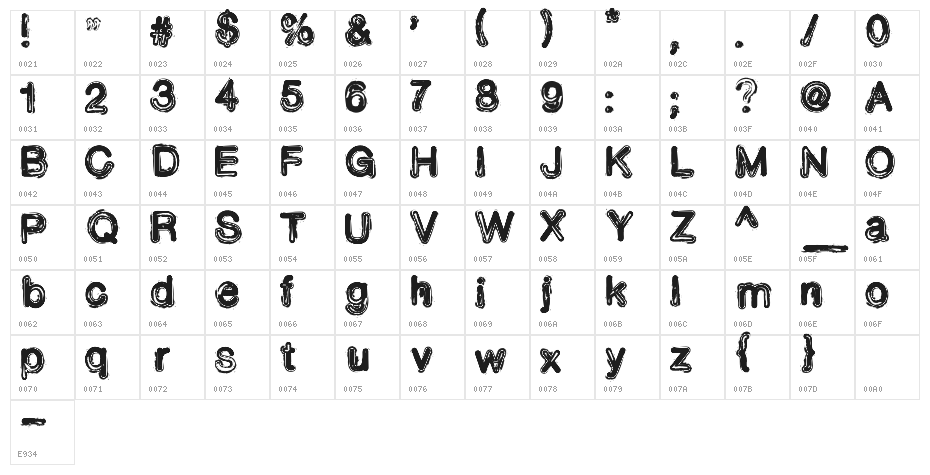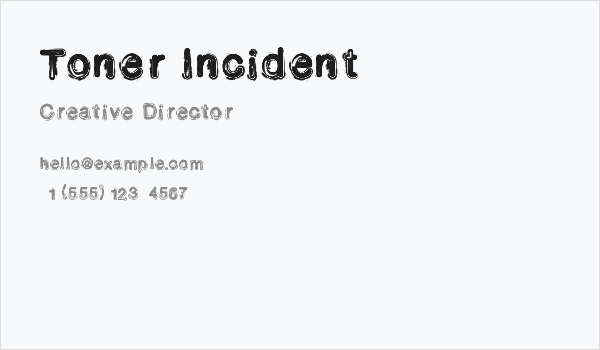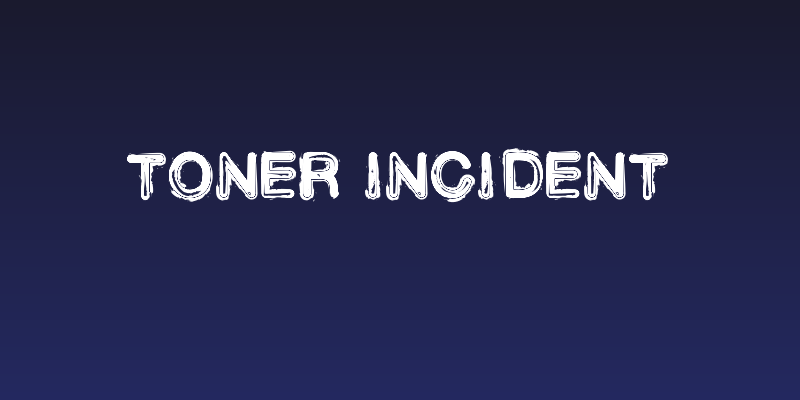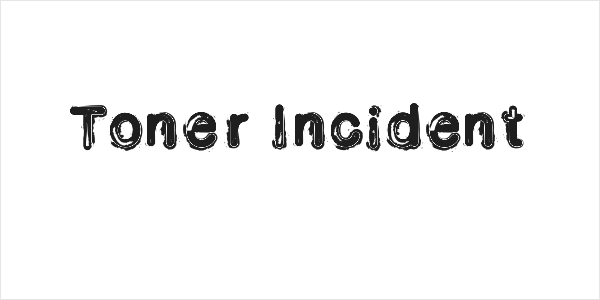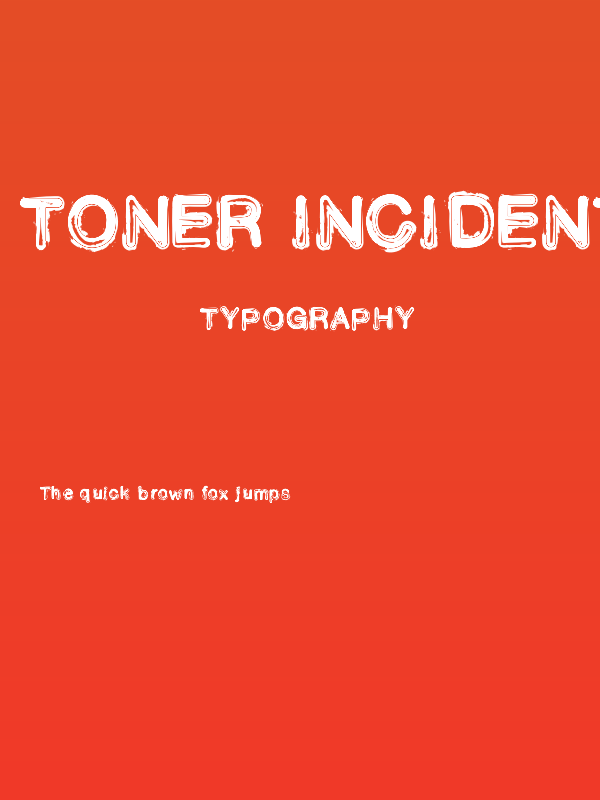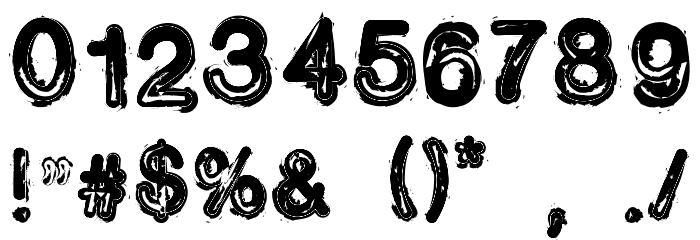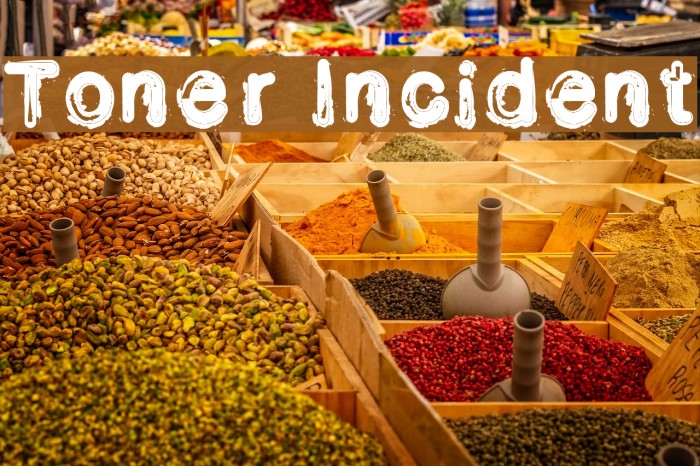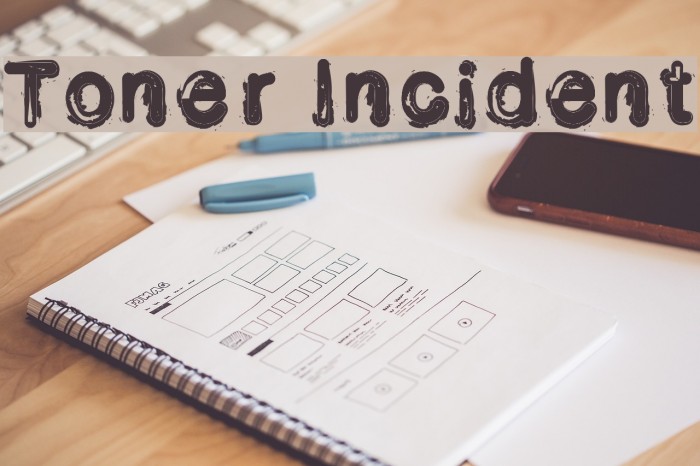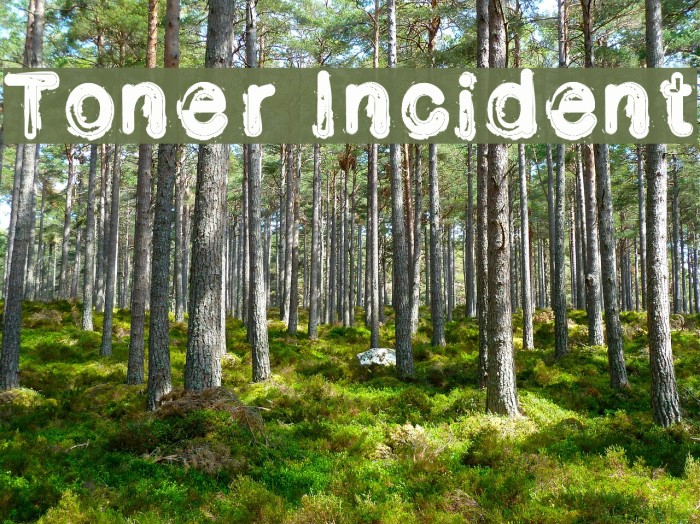
Toner Incident Font
Toner Incident Description
This font features a bold and distressed style, reminiscent of ink or toner smudges, giving it a grungy and textured appearance. The characters are thick and substantial, with irregular edges that create a sense of movement and energy. This unique design adds a raw, organic feel to the text, making it stand out with its bold presence. The uppercase and lowercase letters maintain a consistent style, while the numerals and special characters complement the overall aesthetic. The font's distinctive look is ideal for projects that require a touch of edginess and creativity.
| Overall Style | Grunge, Edgy, Textured |
| Proposed Projects | Ideal for album covers, posters, streetwear branding, and edgy graphic designs. |